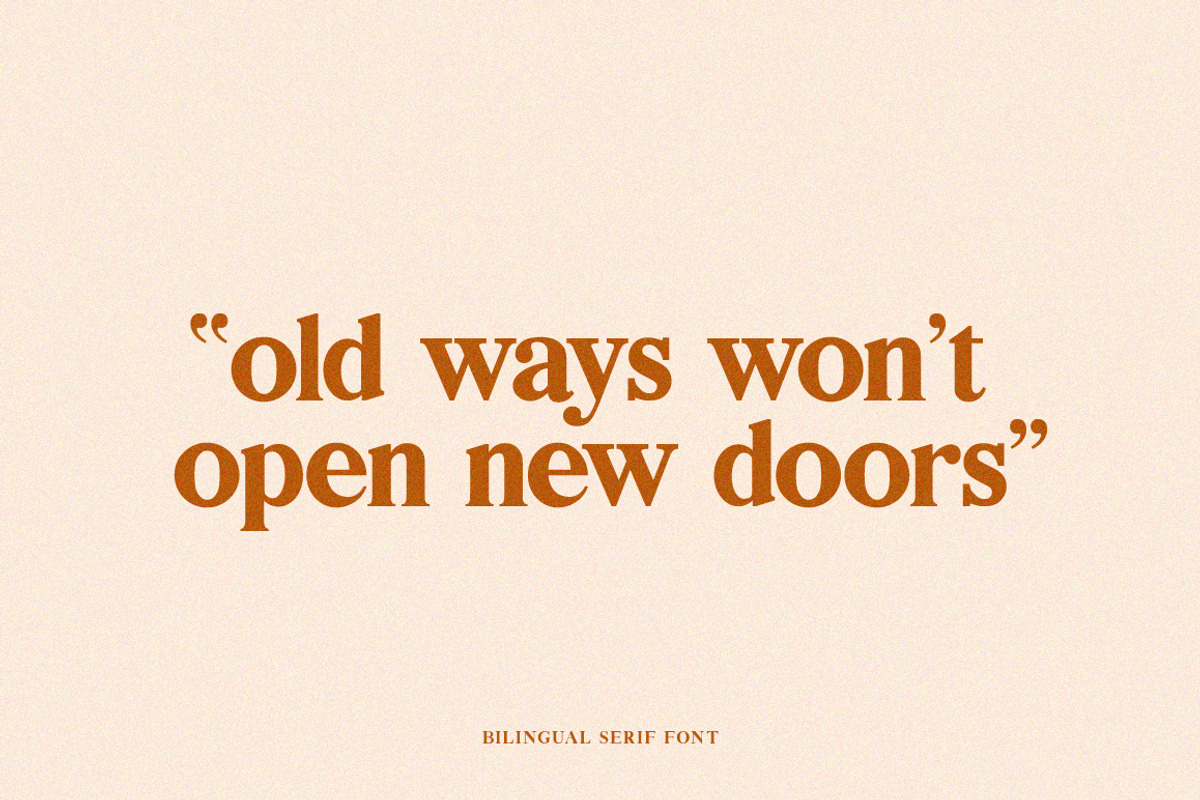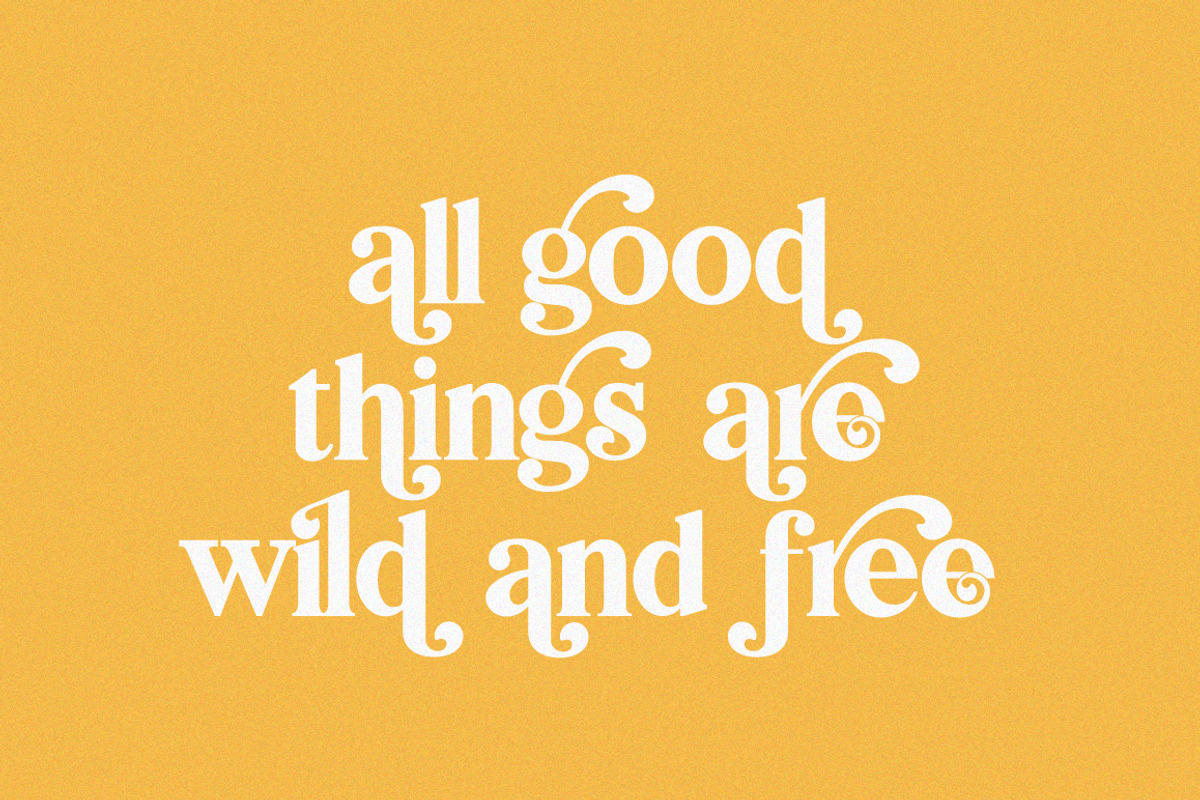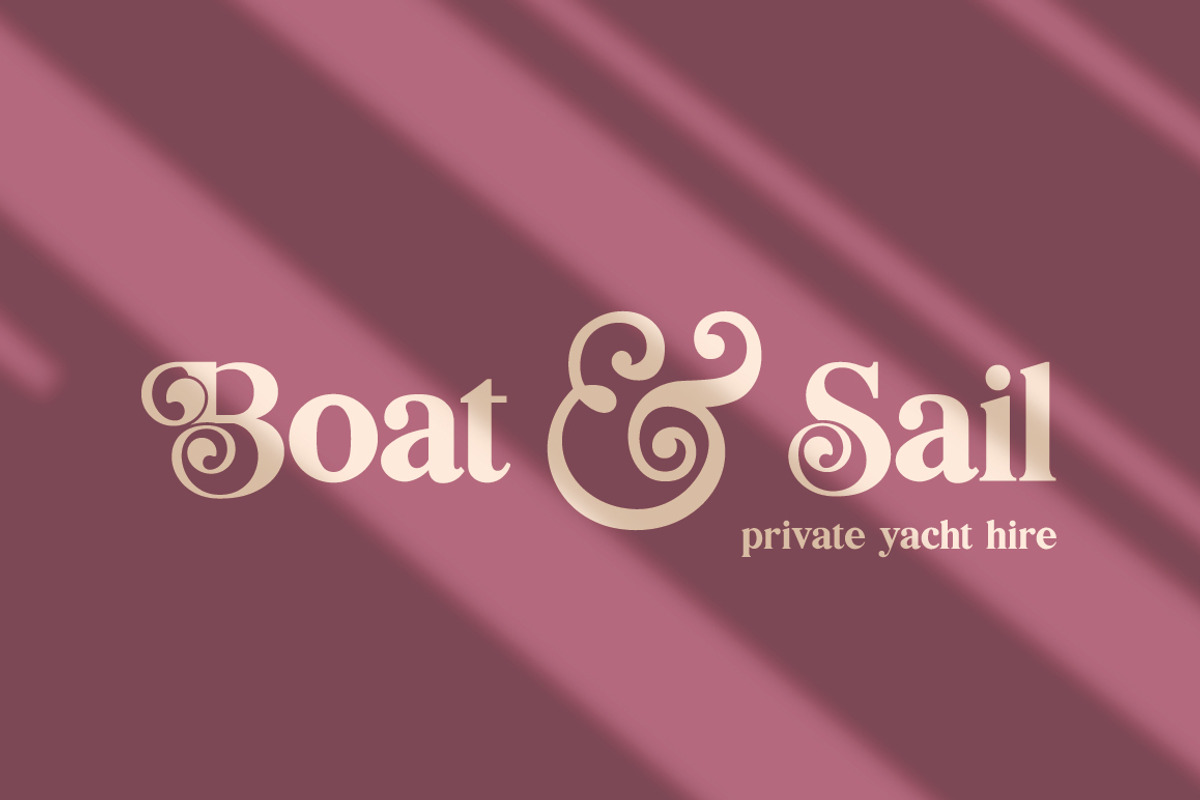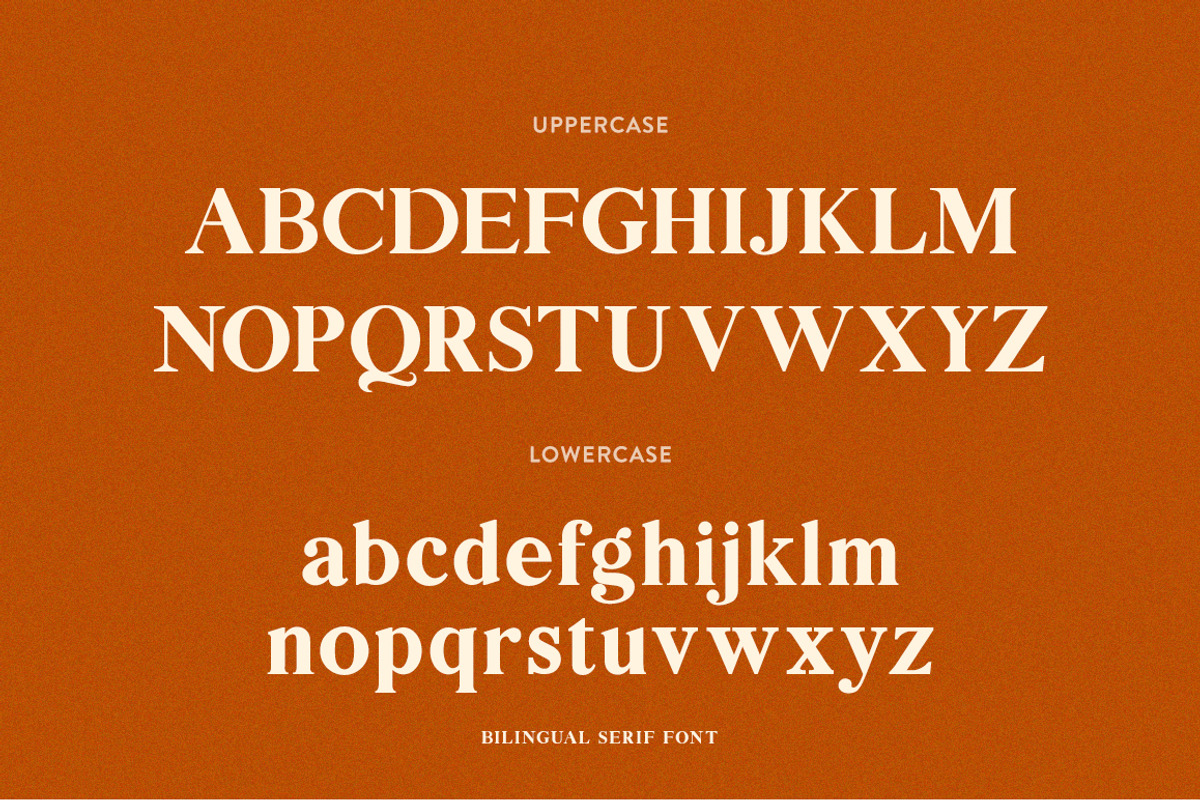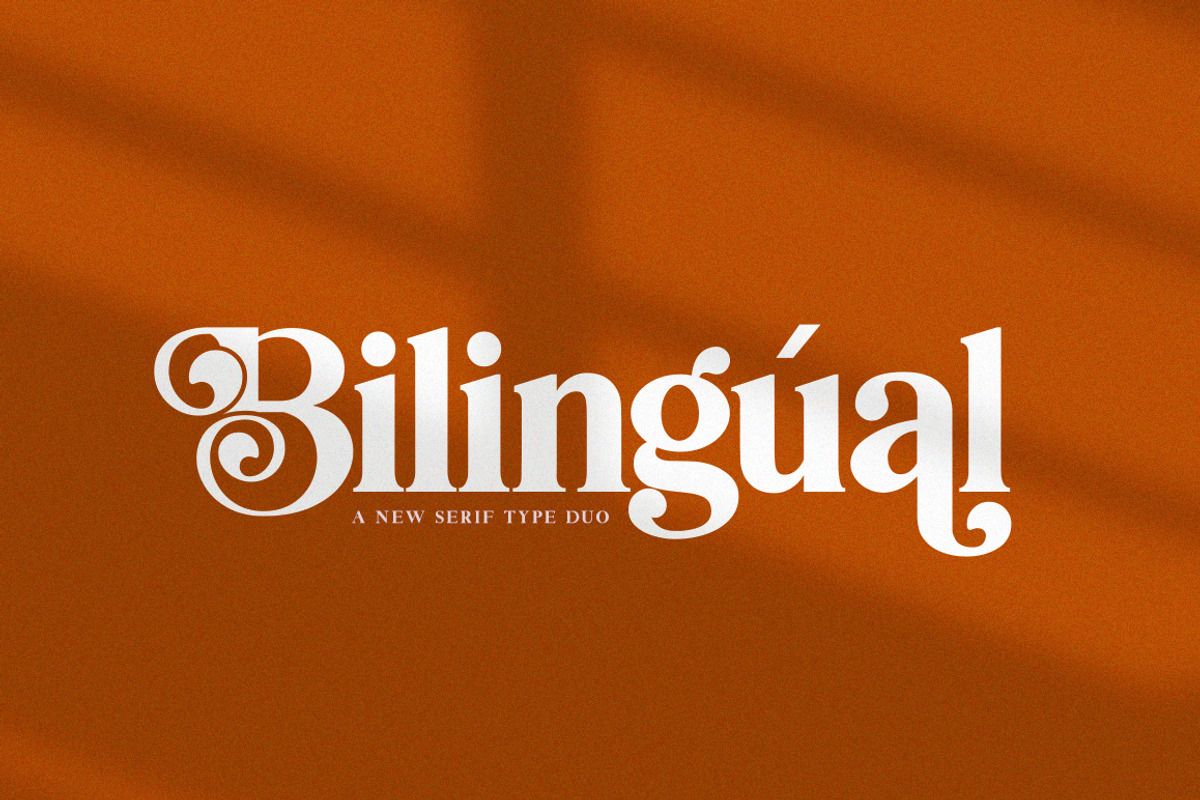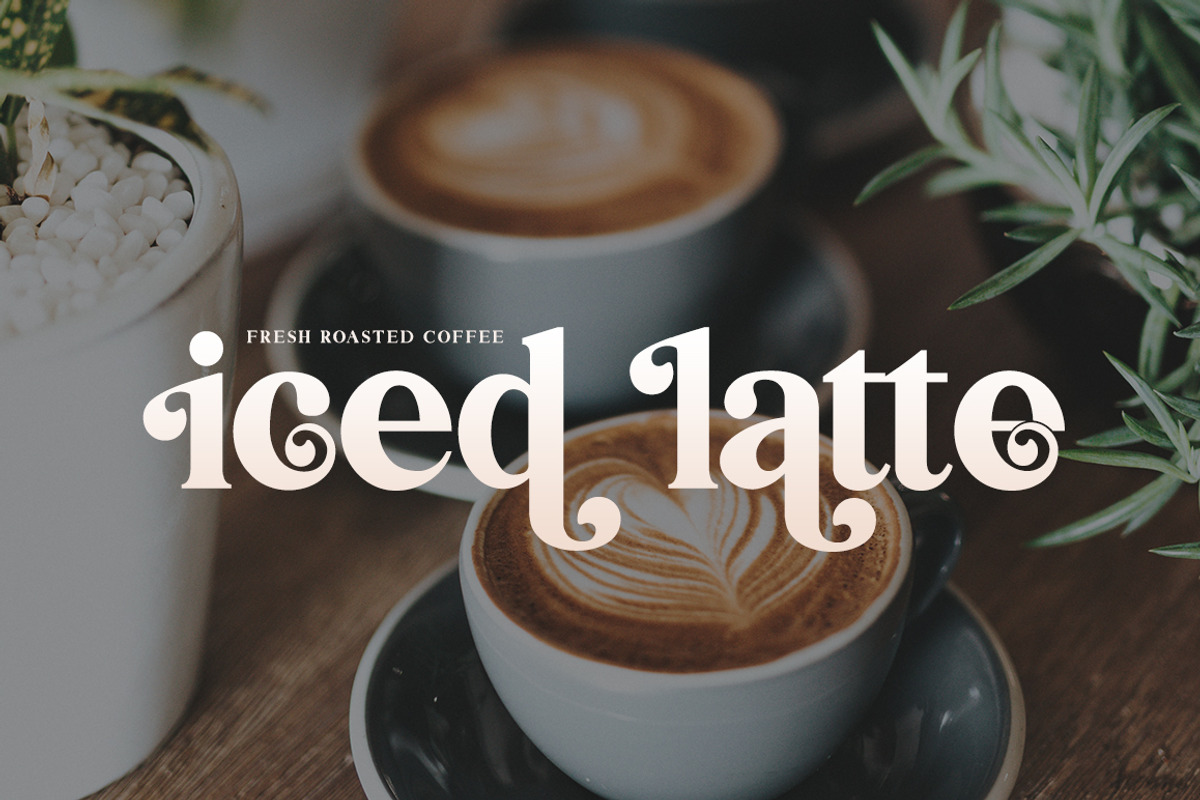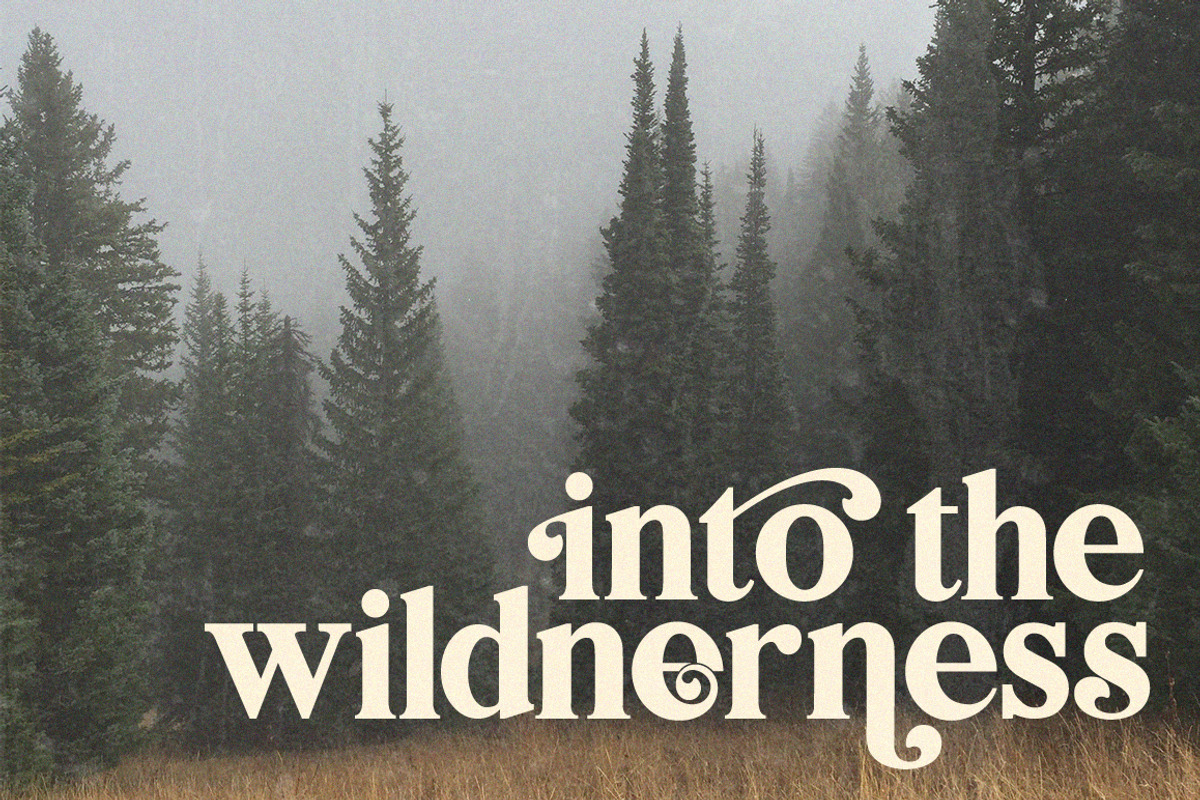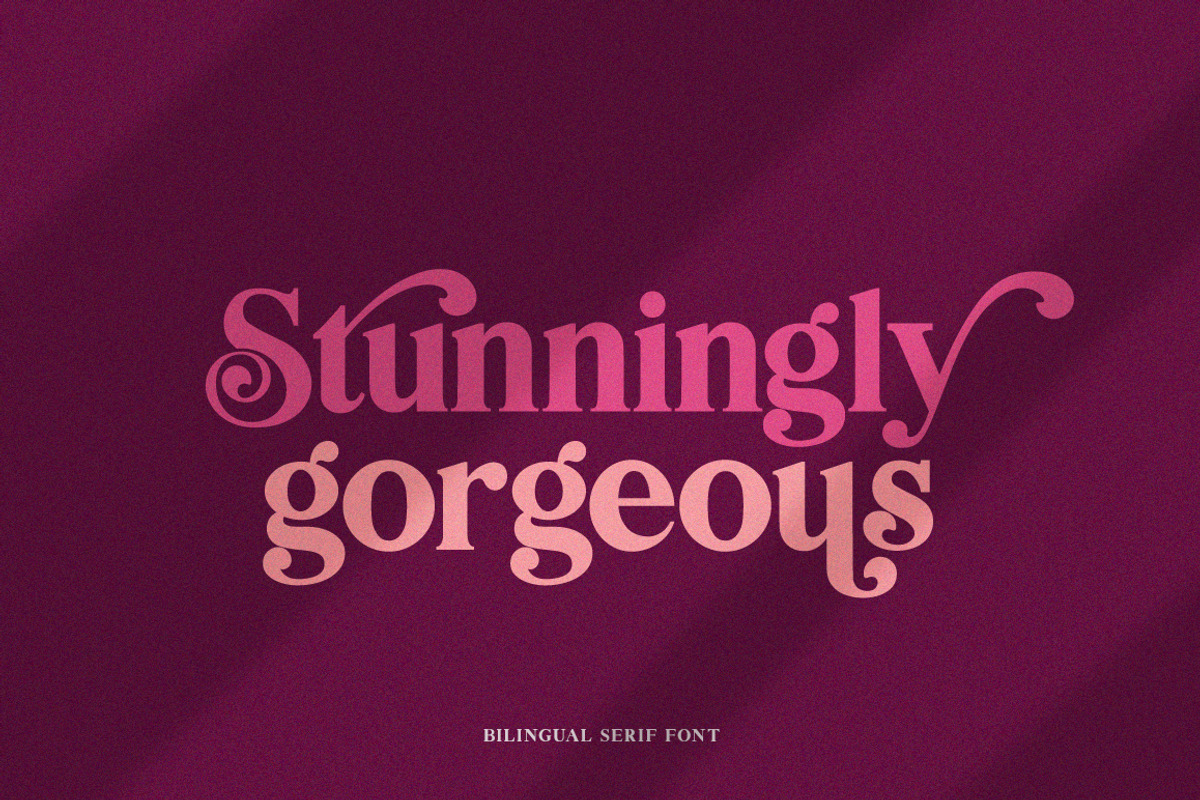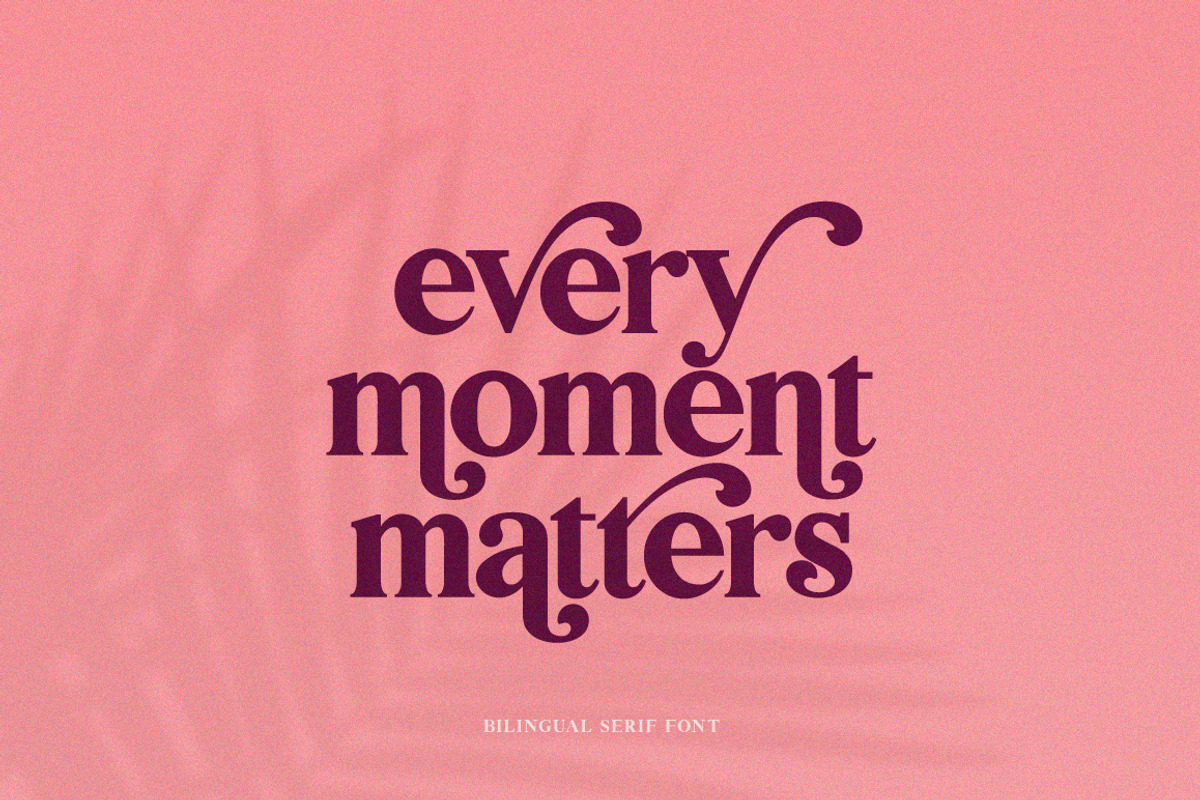
Bilingual Serif Font Duo
Bilingual Serif is a brand new, multi-language supported serif font from Salt & Pepper designs. We love this modern take on a classic and each character has been crafted to ensure it has style and substance! The extra swashes add character but the base font can be used alone and still stand out from the crowd.
This font supports Western, Central and Southern European languages